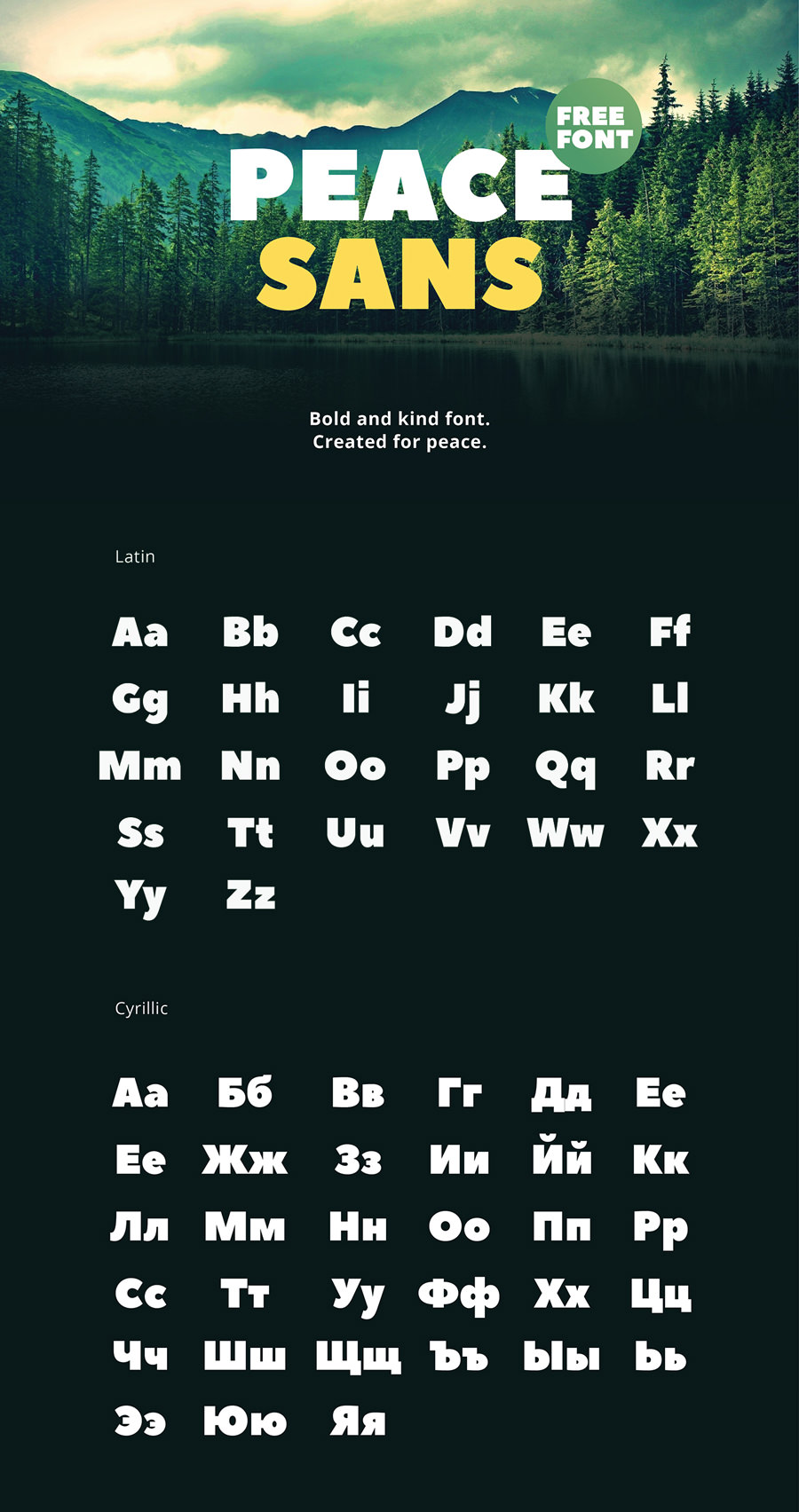
Peace Sans Typeface
Peace Sans Typeface is a bold and kind sans-serif font designed and published by Sergey Ryadovoy for TypeType foundry. The font is available for download in ttf format and free for personal and commercial use.